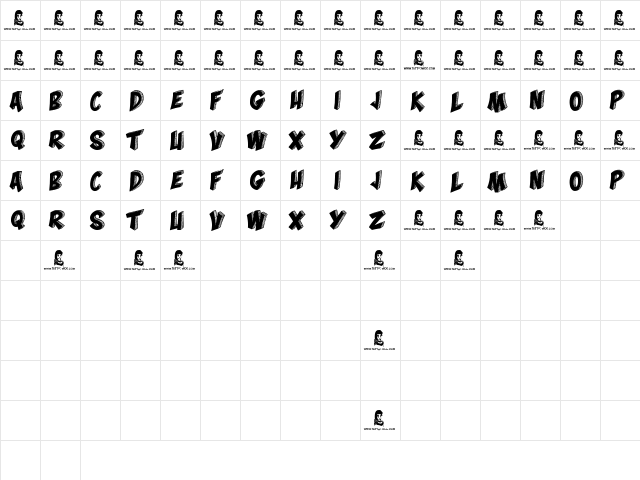
Mona Shark Regular
| Foundry | Jonathan S. Harris |
| Designer | Jonathan S. Harris |
Design Context for Mona Shark Typeface
Mona Shark is a composed and adaptable typeface that performs quietly and consistently across a wide range of design contexts.